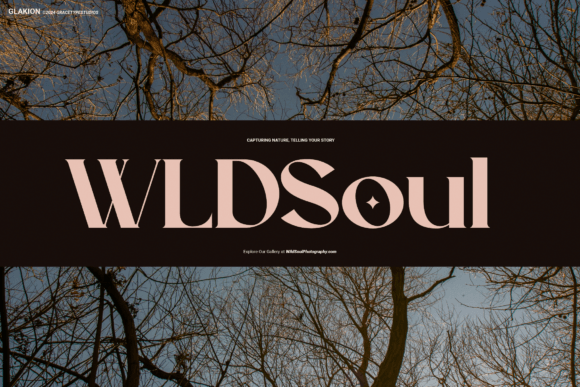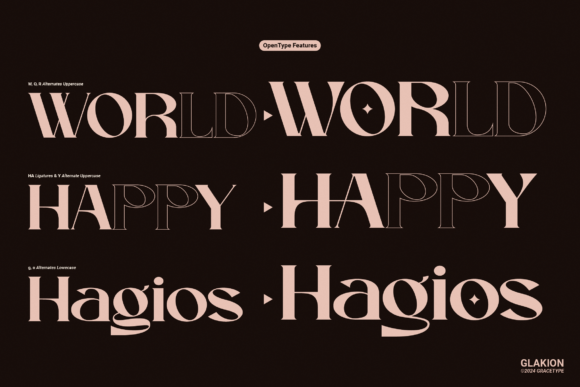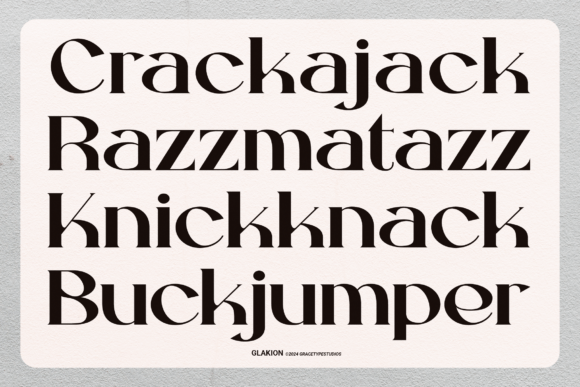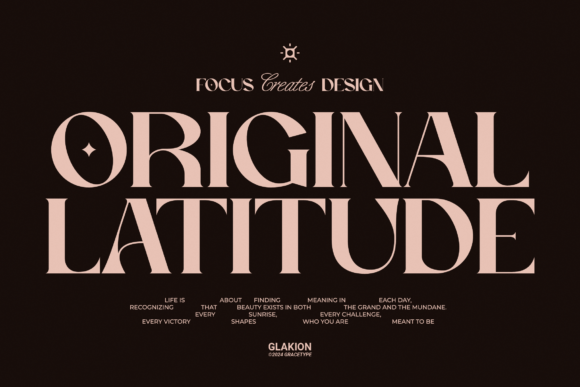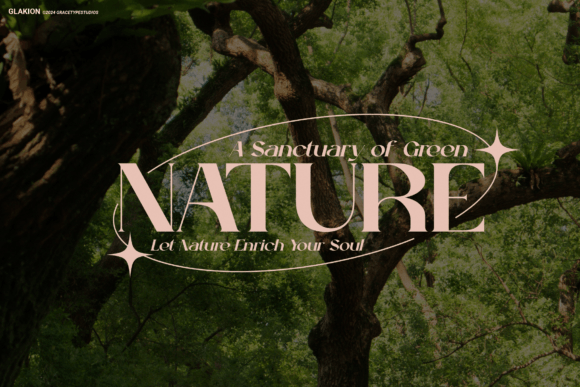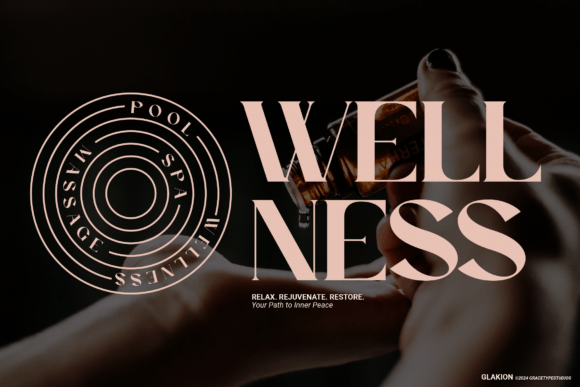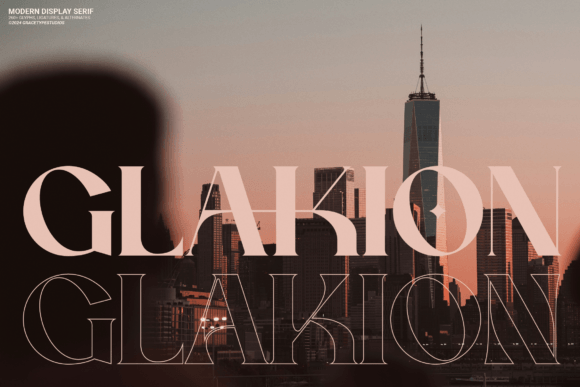
Introducing Glakion Font: The Perfect Blend of Modern Elegance and Classic Sophistication
In the world of typography, fonts play a crucial role in conveying the tone and personality of a brand or design. For designers and crafters, finding the right font can make all the difference in creating a visually appealing and effective design. If you’re on the hunt for a font that exudes modern elegance with a touch of classic sophistication, look no further than Glakion Font. In this article, we’ll dive into the world of Glakion, exploring its features, benefits, and uses, and why it’s becoming a go-to choice for designers and crafters alike.
What is Glakion Font?
Glakion is a modern serif font that seamlessly blends clean, stylish letters with a touch of classic elegance. Its unique design makes it easy to read, perfect for both digital and print designs. Whether you’re working on a branding project, website design, or crafting a beautiful print piece, Glakion offers a sophisticated look that’s sure to impress.
Key Features of Glakion Font
So, what sets Glakion apart from other fonts? Here are some of its key features:
- Modern Serif Design: Glakion boasts a modern serif design that gives it a fresh and contemporary feel.
- Clean and Stylish Letters: The font features clean and stylish letters that are easy to read, making it perfect for body text and headings.
- Classic Elegance: Glakion’s classic elegance gives it a timeless feel that’s perfect for designs that require a touch of sophistication.
- Digital and Print Friendly: The font is optimized for both digital and print designs, ensuring it looks great in any medium.
Benefits of Using Glakion Font
So, why should you choose Glakion for your next design project? Here are some benefits of using Glakion Font:
- Enhances Readability: Glakion’s clean and stylish design makes it easy to read, even in small sizes.
- Versatile: The font is perfect for a wide range of design projects, from branding and advertising to web design and crafting.
- Sophisticated Look: Glakion adds a touch of sophistication to any design, making it perfect for high-end brands and luxury products.
- Easy to Pair: The font pairs well with a variety of other fonts, making it easy to create a cohesive design.
Uses of Glakion Font
Glakion Font is perfect for a wide range of design projects, including:
- Branding and Logo Design: Use Glakion to create a sophisticated brand identity that stands out.
- Web Design: The font is optimized for digital use, making it perfect for websites and blogs.
- Print Design: Glakion is also great for print designs, such as brochures, flyers, and business cards.
- Crafting and DIY Projects: Add a touch of elegance to your crafting and DIY projects with Glakion.
In conclusion, Glakion Font is a versatile and sophisticated font that’s perfect for designers and crafters looking to add a touch of modern elegance and classic sophistication to their designs. With its clean and stylish letters, classic elegance, and digital and print-friendly design, Glakion is sure to become a go-to choice for a wide range of design projects. Whether you’re working on a branding project, website design, or crafting a beautiful print piece, Glakion Font is the perfect choice.